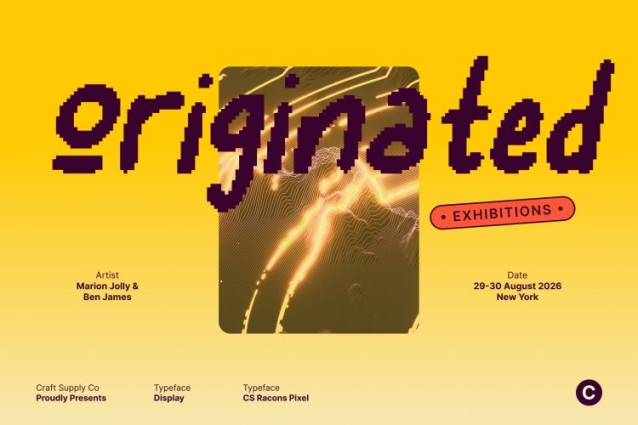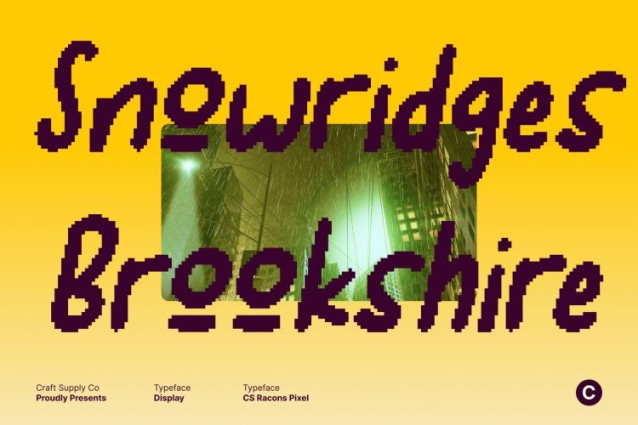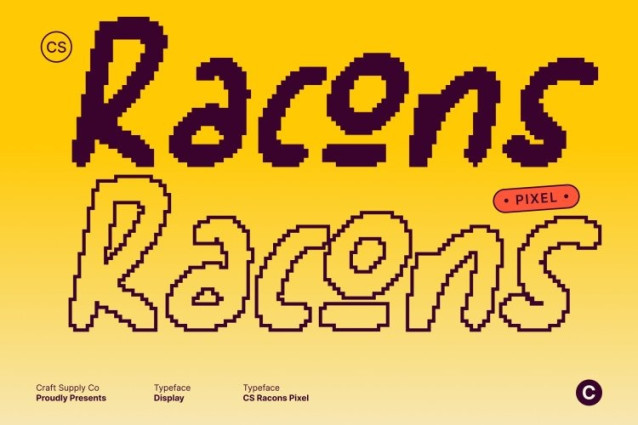
CS Racons Pixel Font
CS Racons Pixel Font This is a cute handwritten-style display font designed to bring warmth, friendliness, and expressive charm into your designs. Built with soft pixel strokes and rounded forms, it delivers a casual, approachable feel that instantly makes text feel lively and inviting.
Soft Letterforms with Handcrafted Appeal
Each character features gentle curves and organic pixel shapes that reflect a hand-drawn sensibility. The imperfect yet balanced construction creates a natural flow, giving your typography a personal, handcrafted look that feels relaxed and human rather than rigid or mechanical.
Perfect for Playful and Creative Projects
This font adapts beautifully across a wide range of creative uses. It’s ideal for children’s designs, lifestyle branding, posters, invitations, social media graphics, and fun editorial layouts. Its playful energy helps messages feel friendly, cheerful, and easy to connect with.
Expressive, Fun, and Approachable Style
With its soft curves and casual handwritten character, adds personality without overwhelming your layout. It enhances creative work with joy and warmth, making it a great choice for designers who want typography that feels fun, expressive, and genuinely approachable.